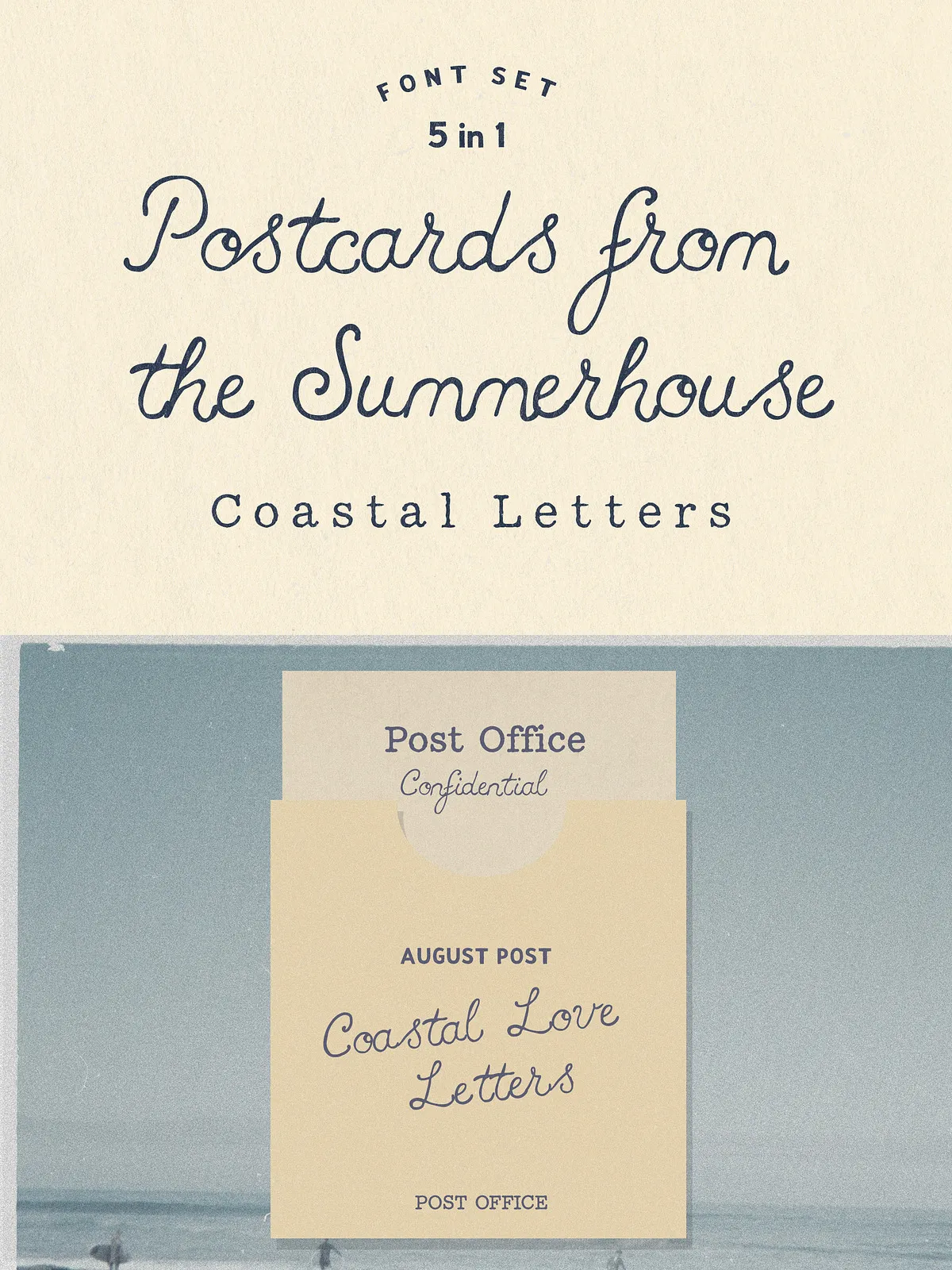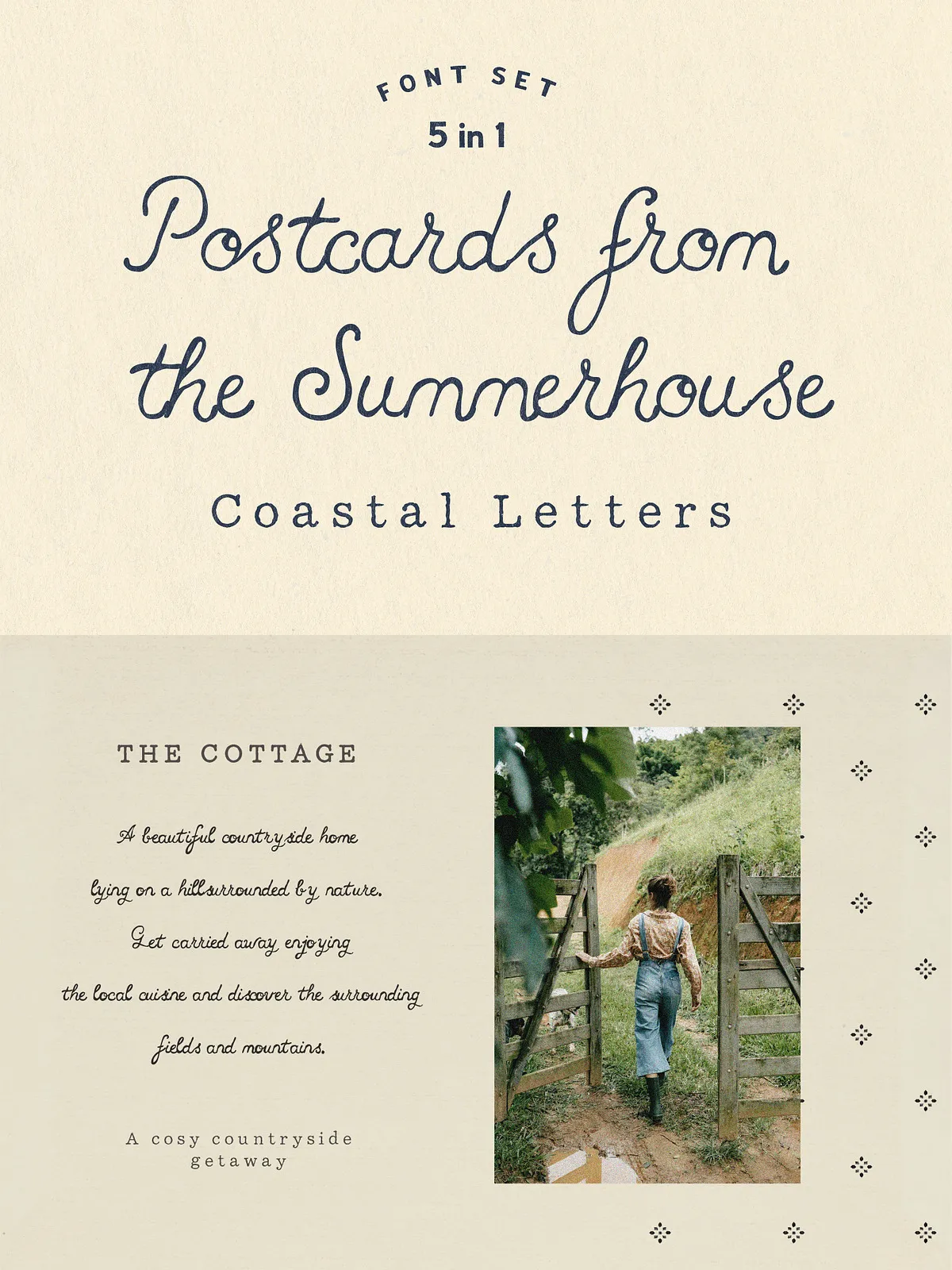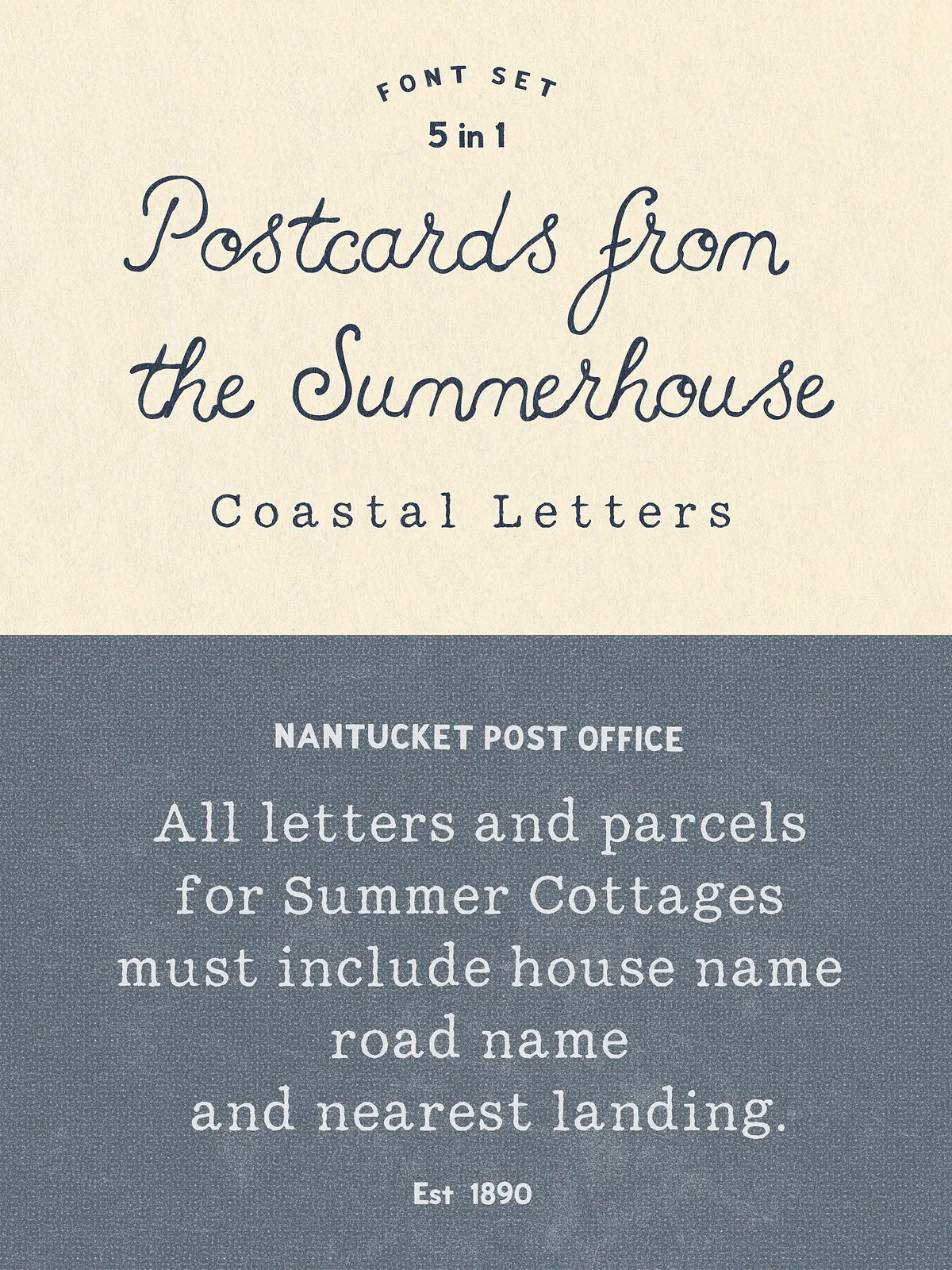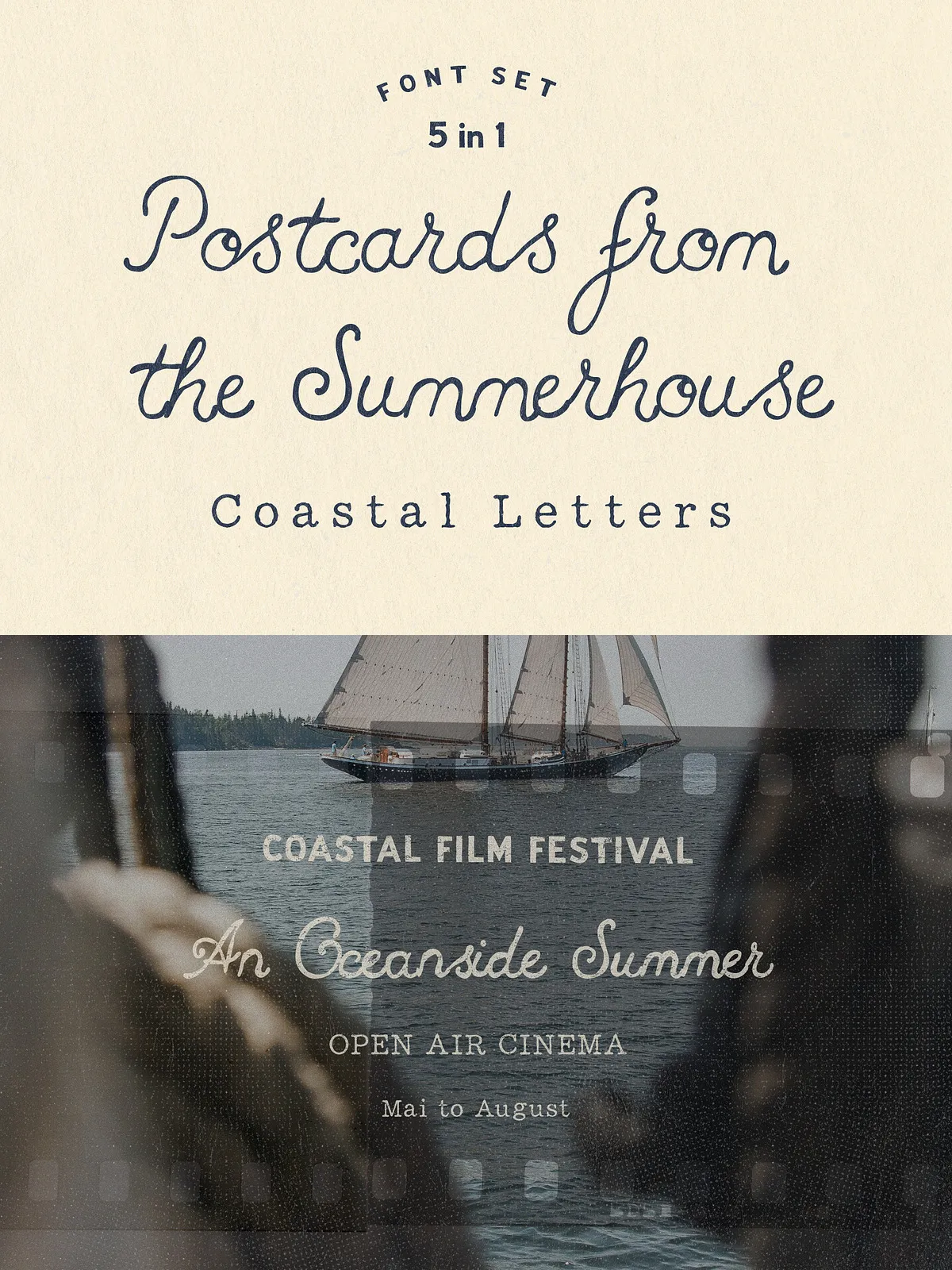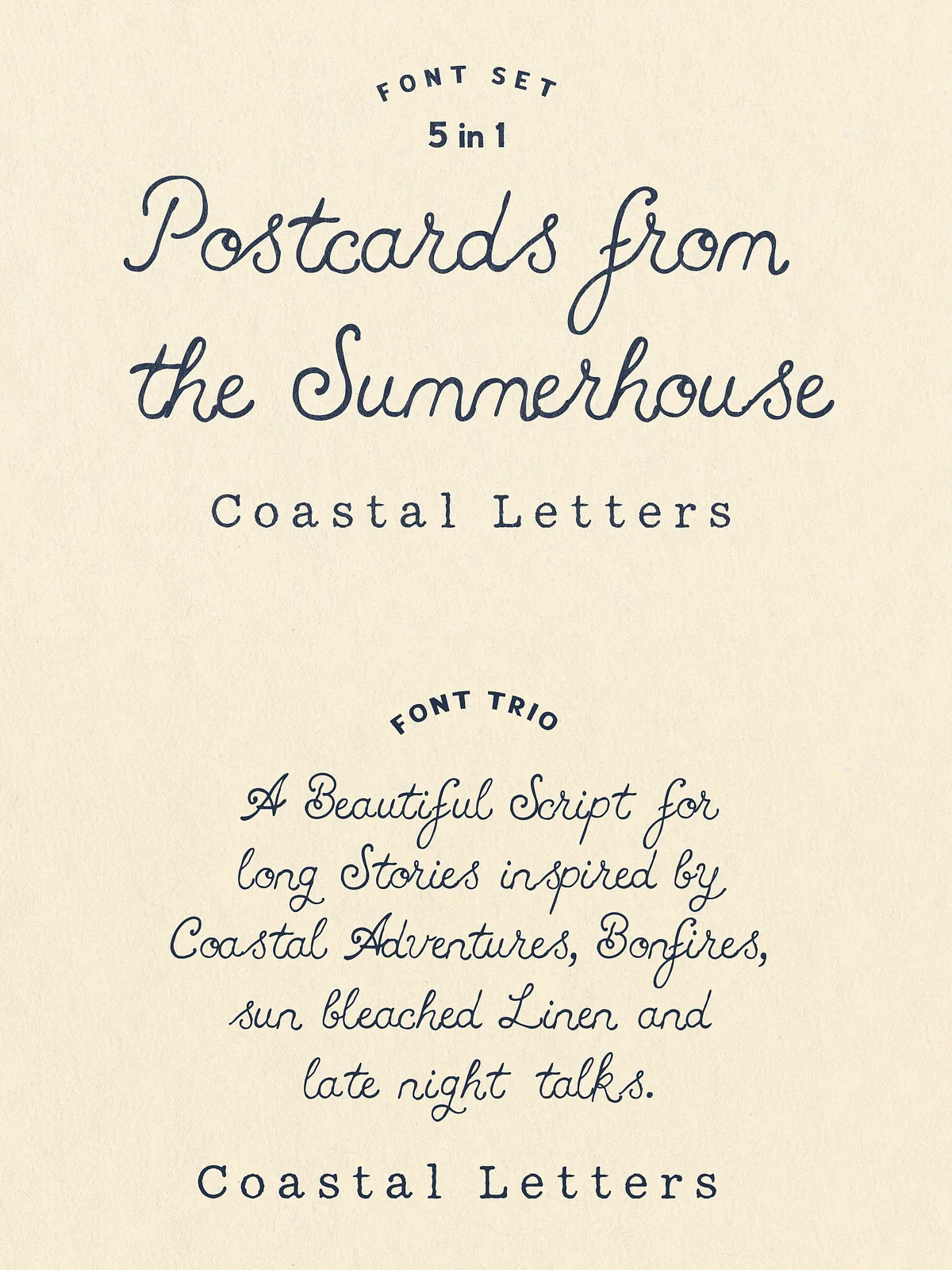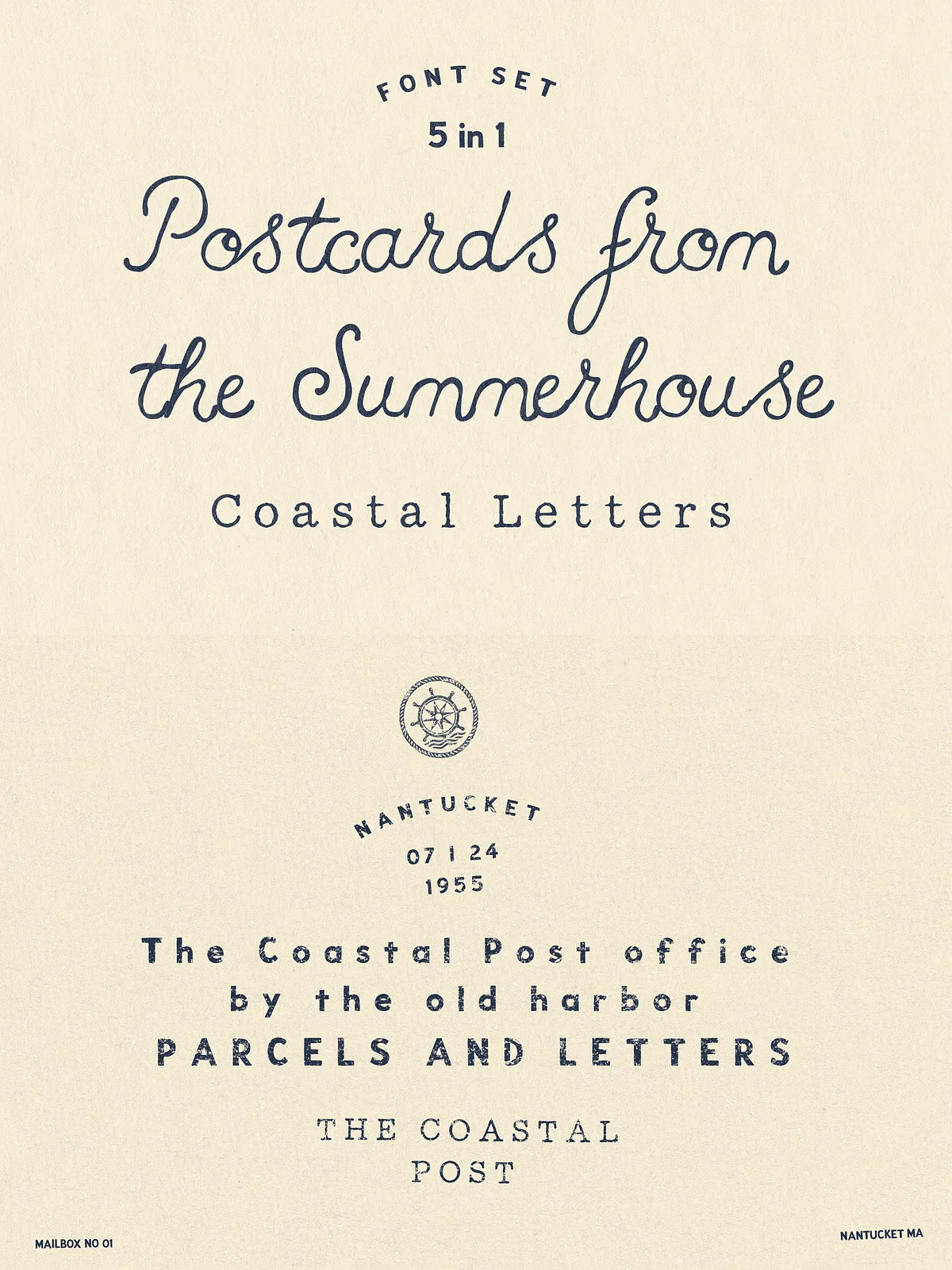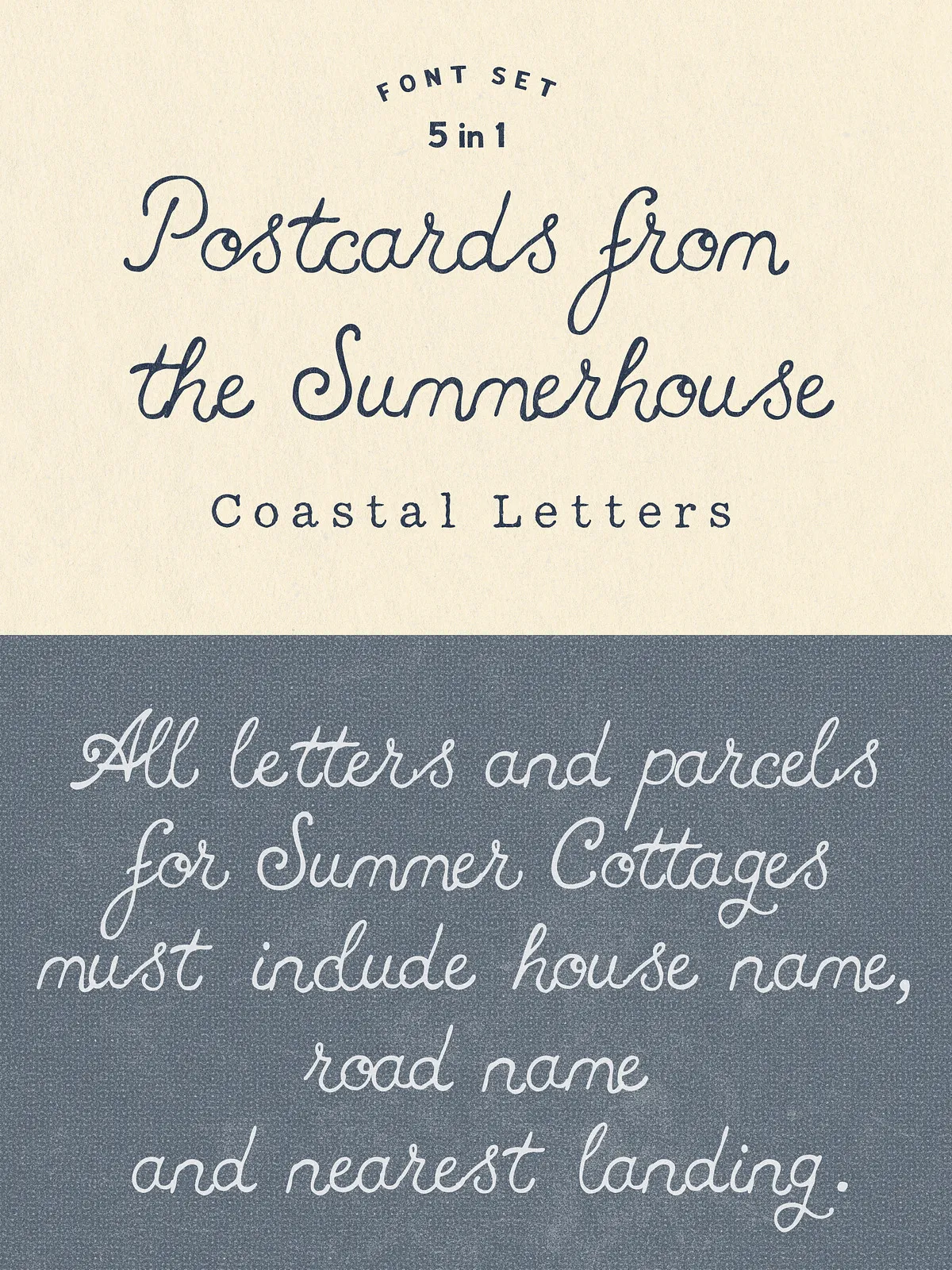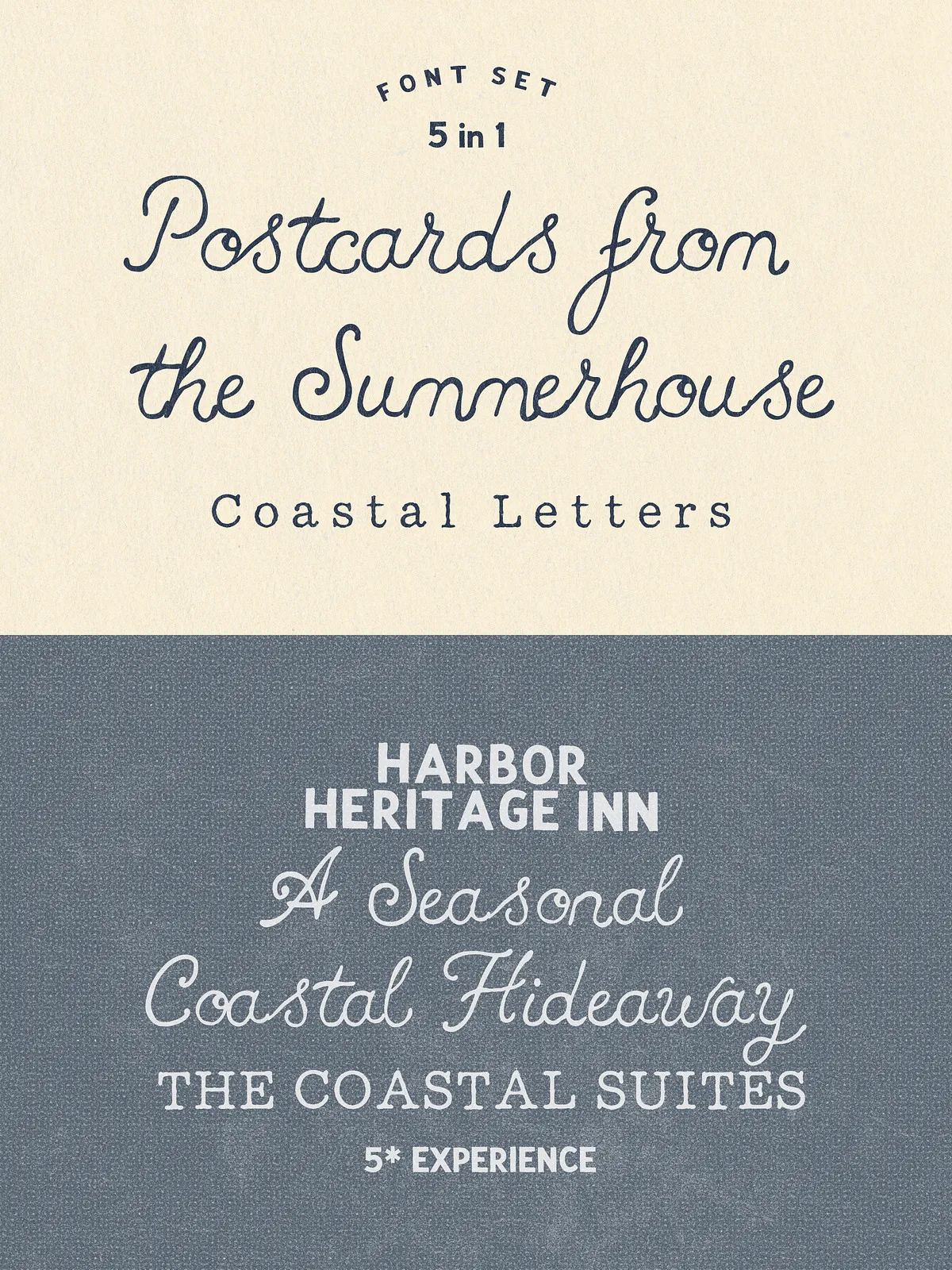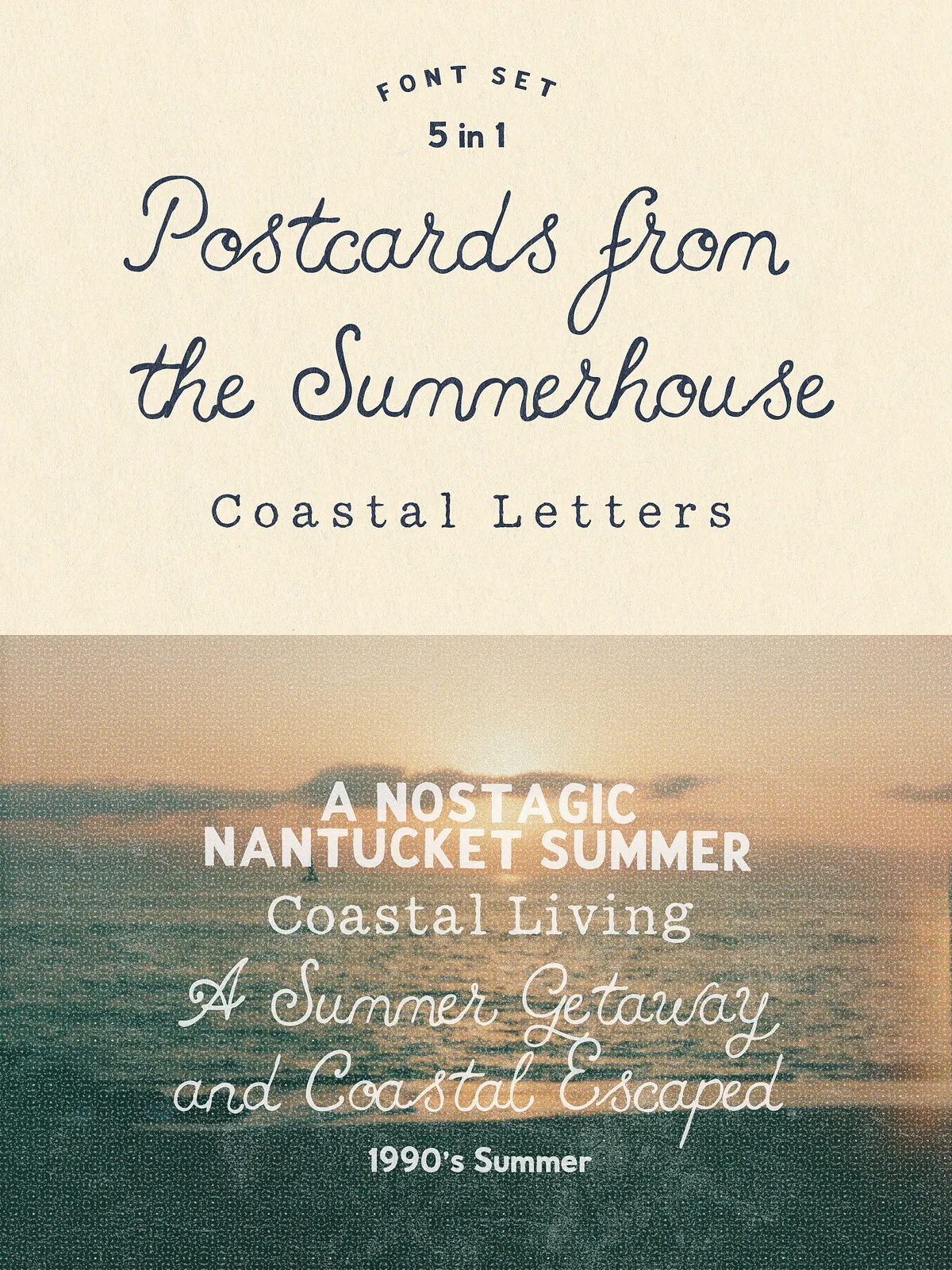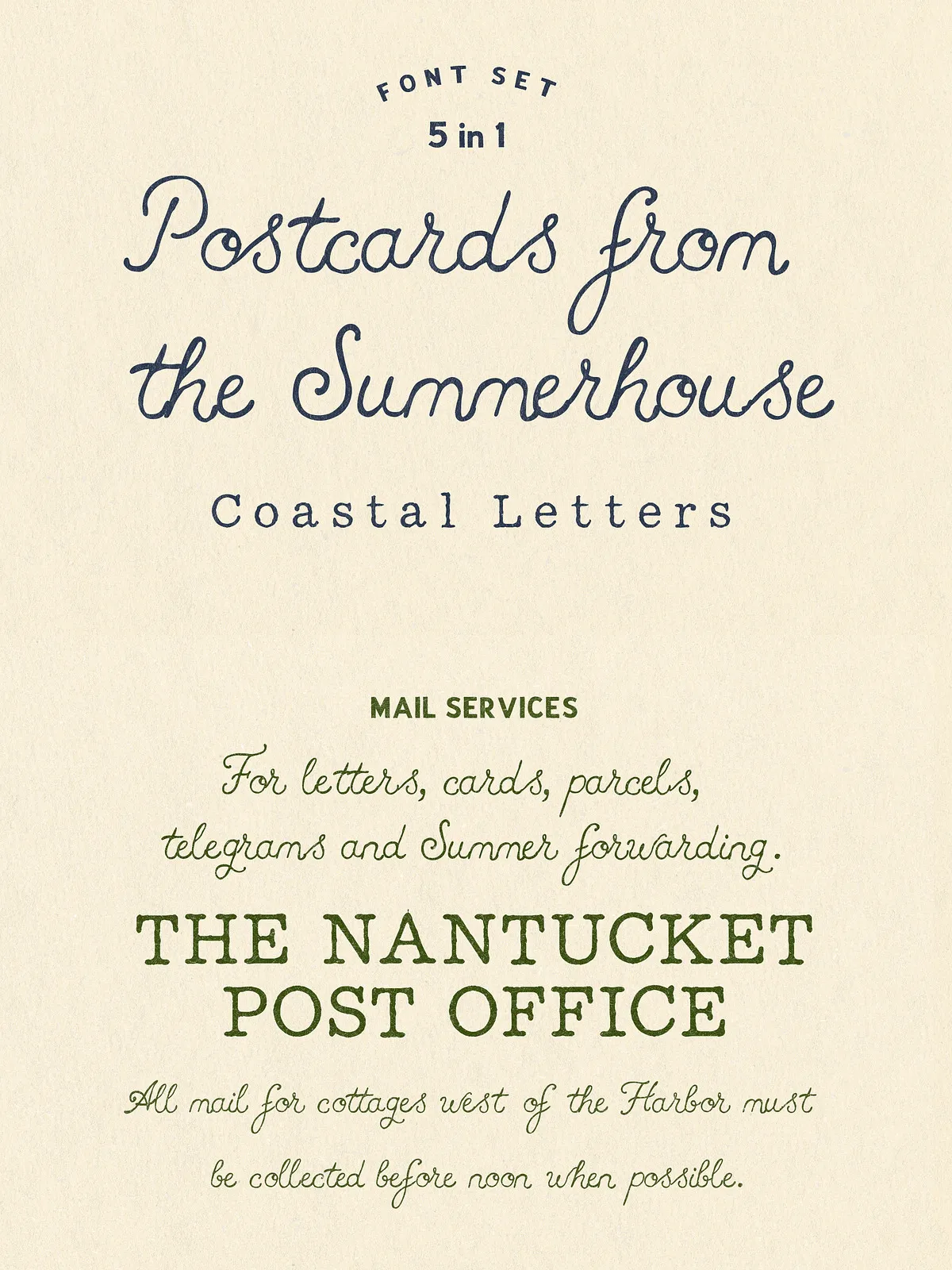
Handwritten Coastal Font Trio
Postcards from the Summerhouse delivers an authentic vintage coastal voice through a curated trio of typefaces: a natural handwritten script, a typewriter-inspired serif, and a rustic textured sans. Each face actively evokes seaside correspondence, sun-bleached stationery, and the tactile quality of aged postcards. Use this collection to create projects that feel lived-in, intimate, and unmistakably coastal.
Design Character
The handwritten script reads like a personal note from a summer getaway — irregular strokes, soft slants, and warm letter connections add a human touch. The serif mirrors classic typewriter stamps and postal marks: mechanical yet nostalgic, offering crisp headlines and readable subheads. The handmade sans adds texture and a casual Nantucket flair, finishing compositions with rustic clarity and vintage wear. Together, they form a versatile system that balances charm with practical typographic structure.
Ideal Uses
Postcards from the Summerhouse adapts to projects that demand a romantic, authentic coastal aesthetic. Use it for:
• Vintage branding and boutique identity systems — craft logos and marks that read as handcrafted and heritage-driven.
• Coastal and nautical packaging — apply the textured sans or handwritten script to labels, tags, and product boxes for a sun-bleached, artisanal look.
• Wedding stationery and invitations — pair the script with the serif for timeless ceremony materials that feel personal and elegant.
• Postcards, greeting cards, and ephemera — reproduce the look of handwritten correspondence and stamped mail.
• Editorial layouts and social graphics — combine serif headlines with textured sans accents for layered, nostalgic spreads.
Pairing Recommendations
For balanced typography, use the typewriter serif as a primary headline and the handwritten script as a signature accent or subhead. Reserve the textured sans for body copy on labels, captions, or small-format packaging where a relaxed, rustic tone helps sell the tactile quality. Limit script use in large blocks; instead, highlight it for names, taglines, and focal text to preserve legibility and impact.
Features & Technical Notes
• Hand-drawn script with natural stroke variation and contextual letter shapes to avoid mechanical repetition.
• Serif with monospaced, typewriter-inspired character that provides clear, classic headline forms.
• Textured sans with subtle distressing to evoke sun-bleached materials and aged paper.
• Included bold weights for added hierarchy and display flexibility.
Practical Tips
To maintain the vintage feel, place the fonts on warm, off-white papers, kraft textures, or muted coastal palettes. Apply modest tracking to the script for improved readability and avoid heavy effects that obscure the typefaces’ natural textures. When designing labels or small-format materials, test contrast to ensure the textured sans retains clarity under print conditions.